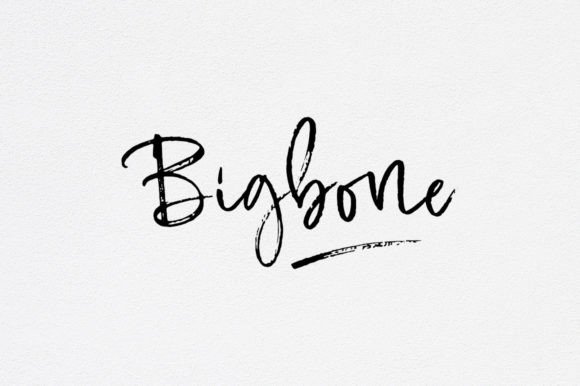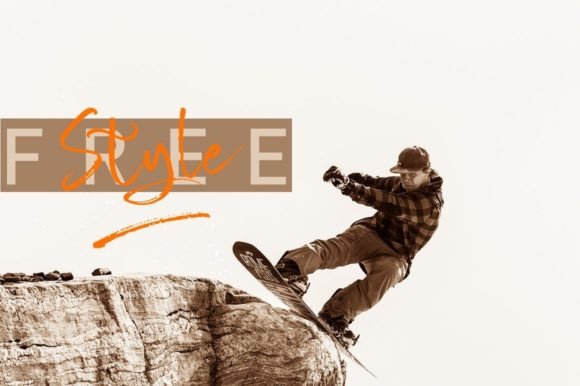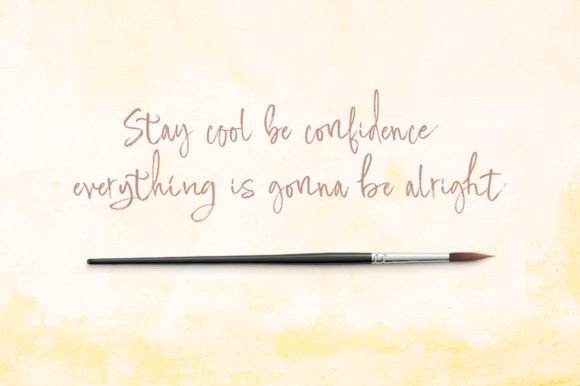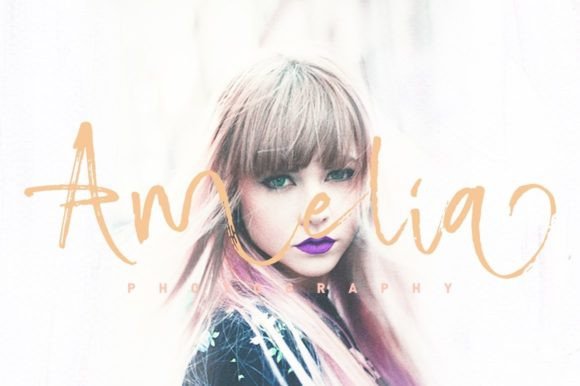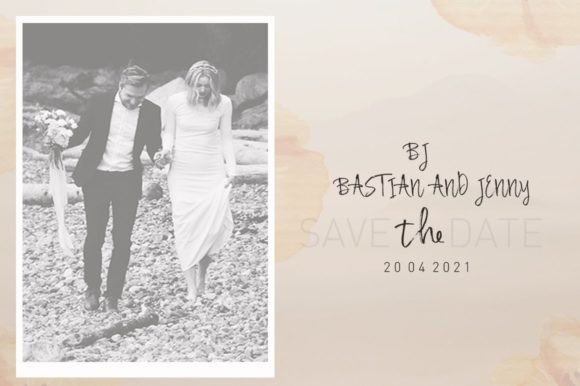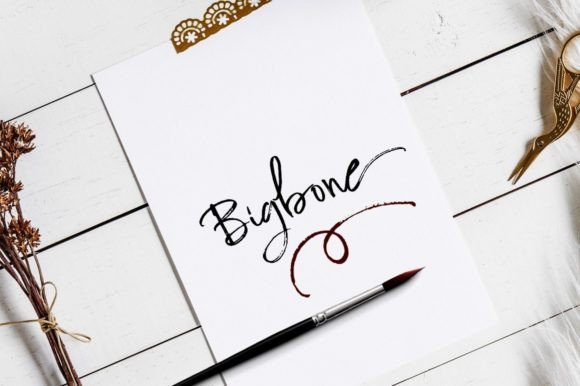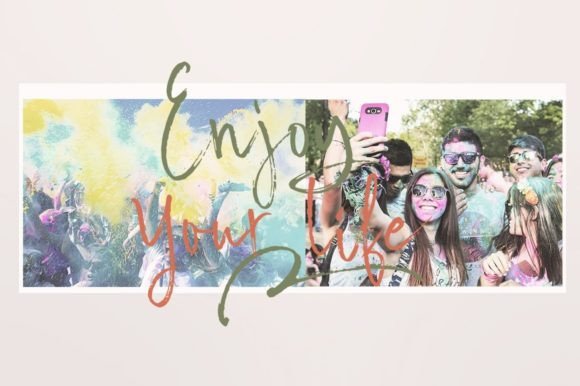
Bigbone Font
About Bigbone Font
“Bigbone” is a modern and captivating handwritten brush font, meticulously crafted to become a standout favorite. This font possesses the potential to elevate each of your creative ideas to the highest level, thanks to its unique design and contemporary appeal.
The handwritten and brush-inspired style of “Bigbone” adds a personal and authentic touch to your text. It brings a dynamic and modern vibe, making it suitable for a variety of design applications.
The interesting features of this font make it a versatile choice for projects across different creative domains. Whether you’re working on branding, logos, social media graphics, or any other design project, “Bigbone” stands ready to infuse a modern and captivating aesthetic.
The brush strokes in the font contribute to its dynamic and expressive quality, providing a sense of energy and movement to your text. This makes it particularly effective for designs that seek to convey a lively and engaging atmosphere.
In summary, “Bigbone” is more than just a font; it’s a creative tool designed to make your designs stand out. Its modern, interesting, and handwritten brush style adds a level of uniqueness and contemporary flair, making it a top choice for designers looking to bring a fresh and dynamic element to their projects.